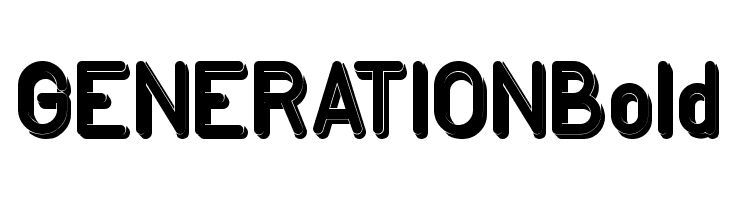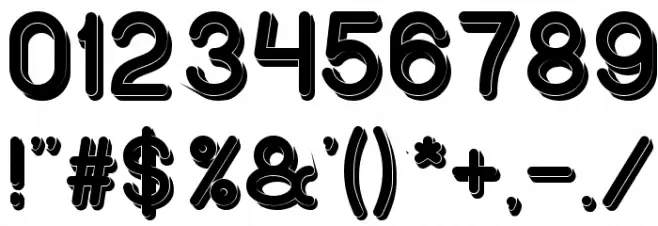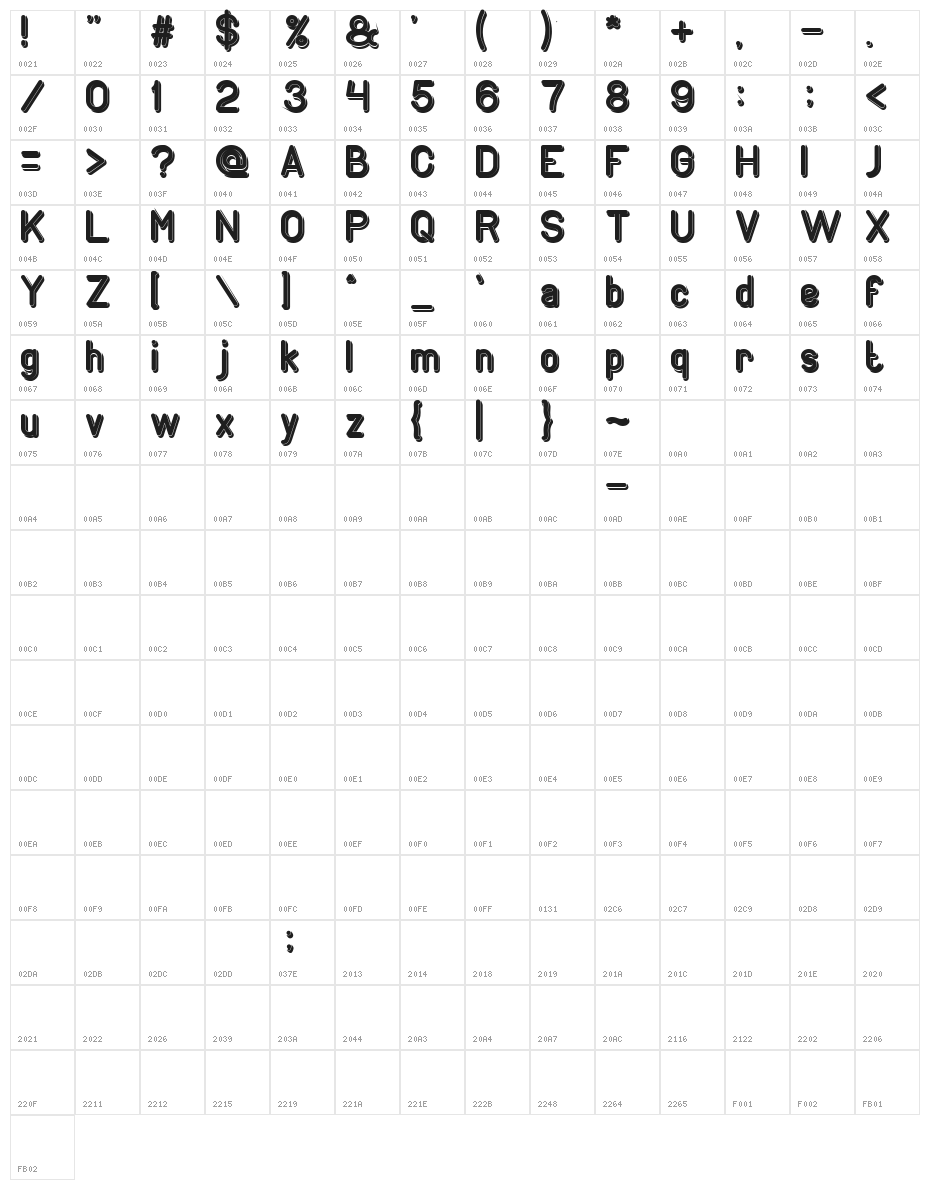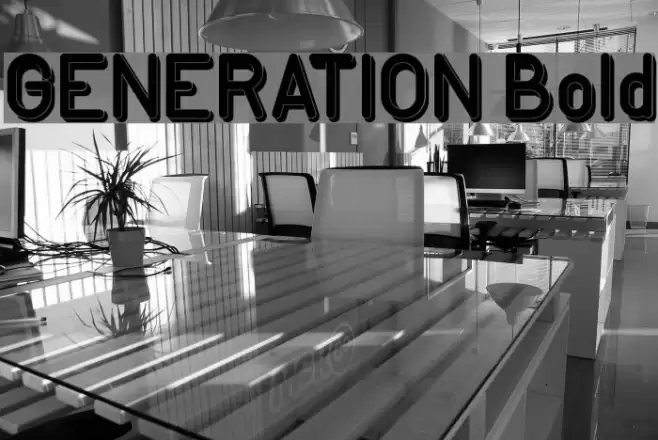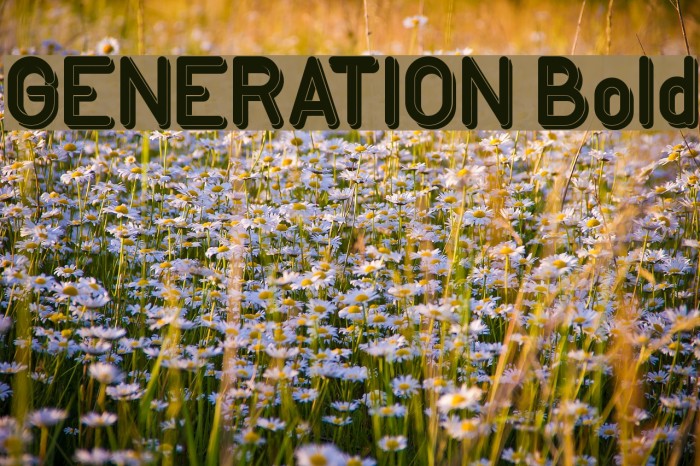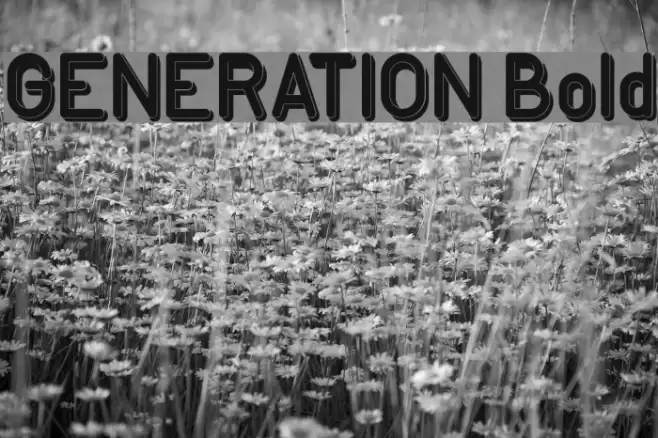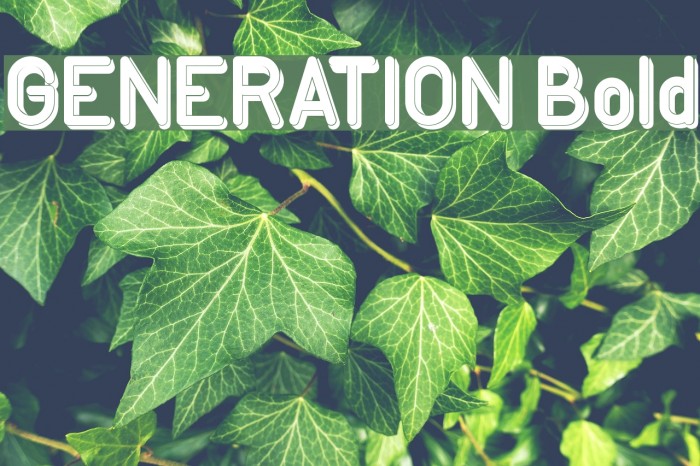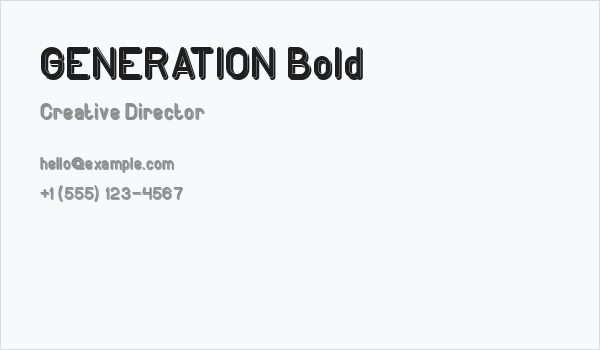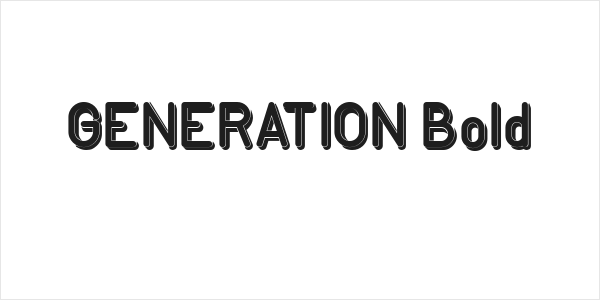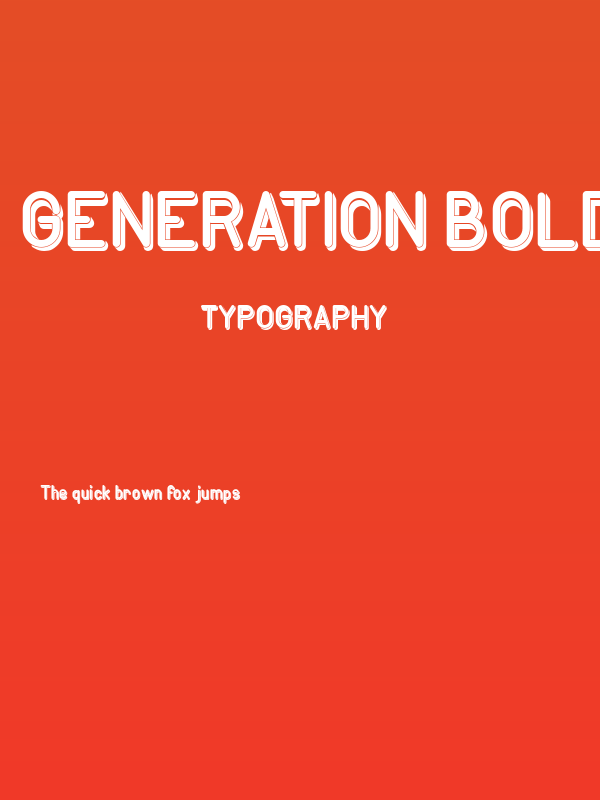
GENERATION Bold Font
GENERATION Bold Description
This bold and striking font features a modern, geometric design with a three-dimensional effect. The characters are outlined with a thick, black shadow that gives them a sense of depth and volume. The uppercase and lowercase letters maintain a consistent style, with rounded edges and a uniform width that enhances readability. The numerals and special characters follow the same design principles, ensuring a cohesive look across all elements. This font's boldness and unique style make it ideal for grabbing attention and making a statement.
| Proposed Projects | Ideal for posters, headlines, branding, and any project that requires a bold, attention-grabbing typeface. |